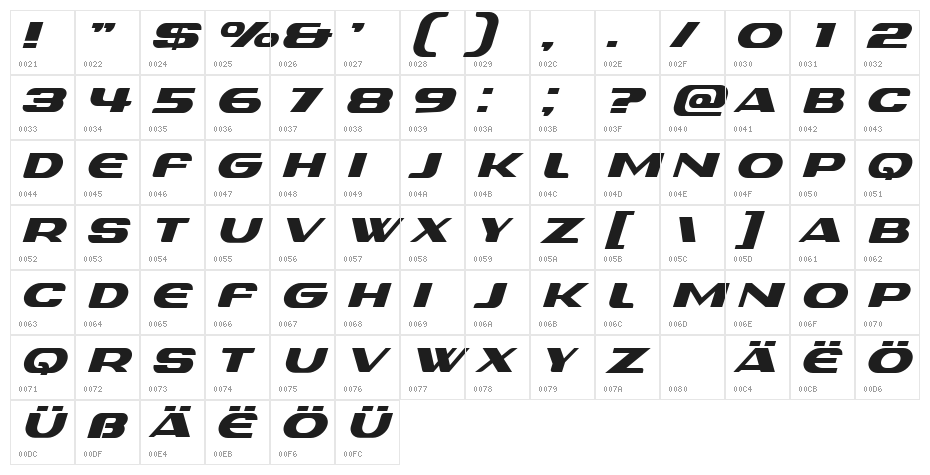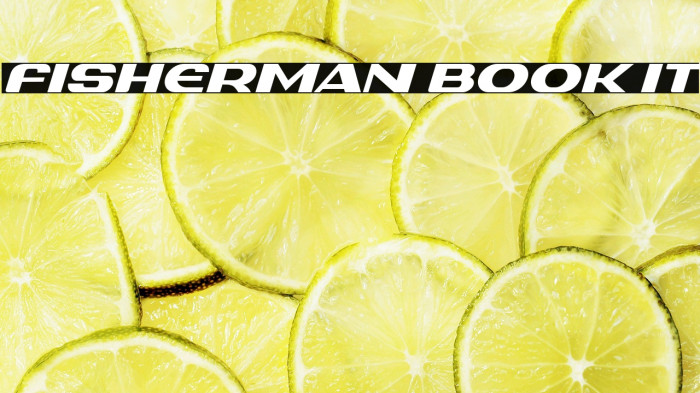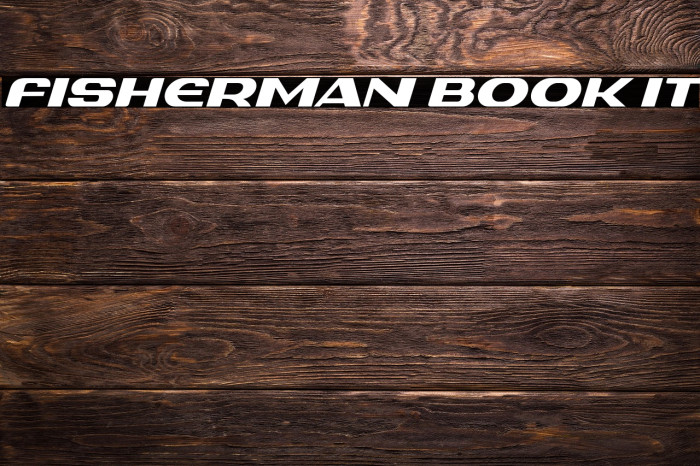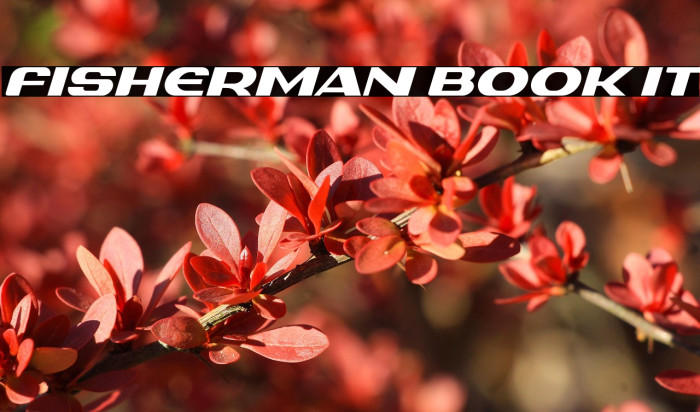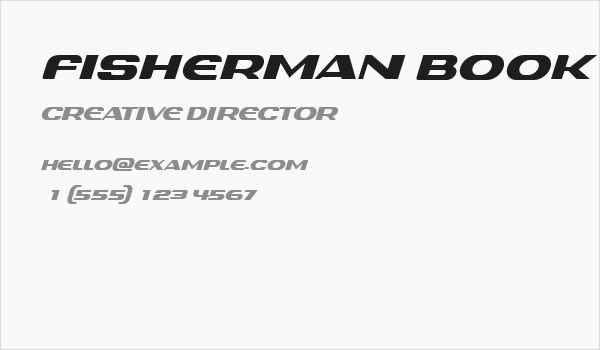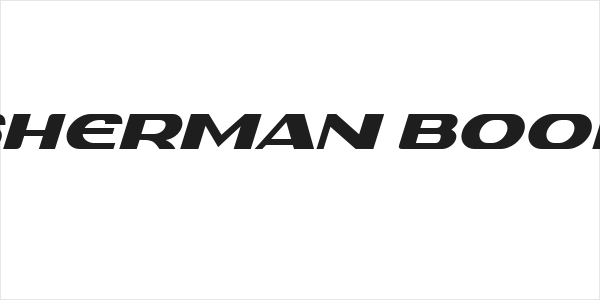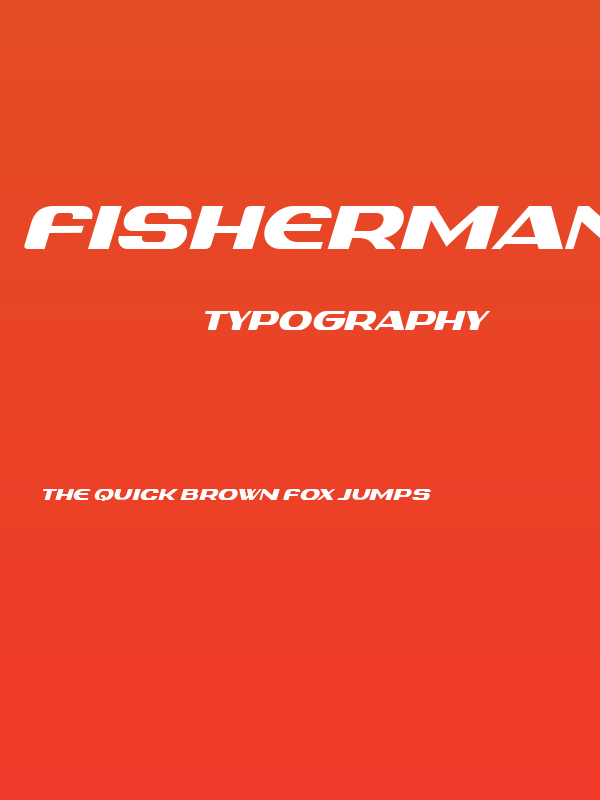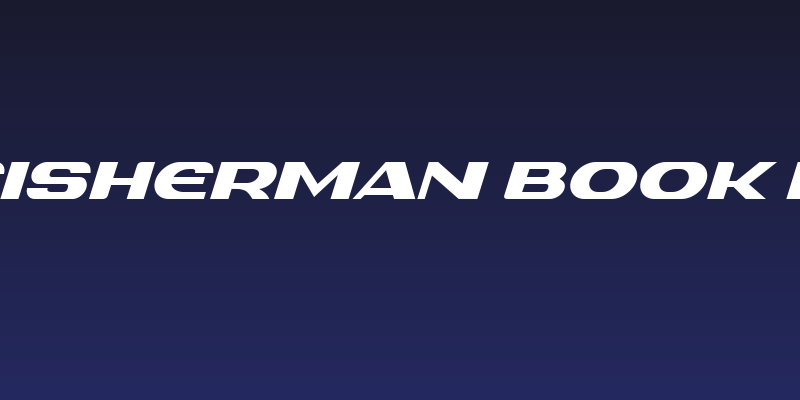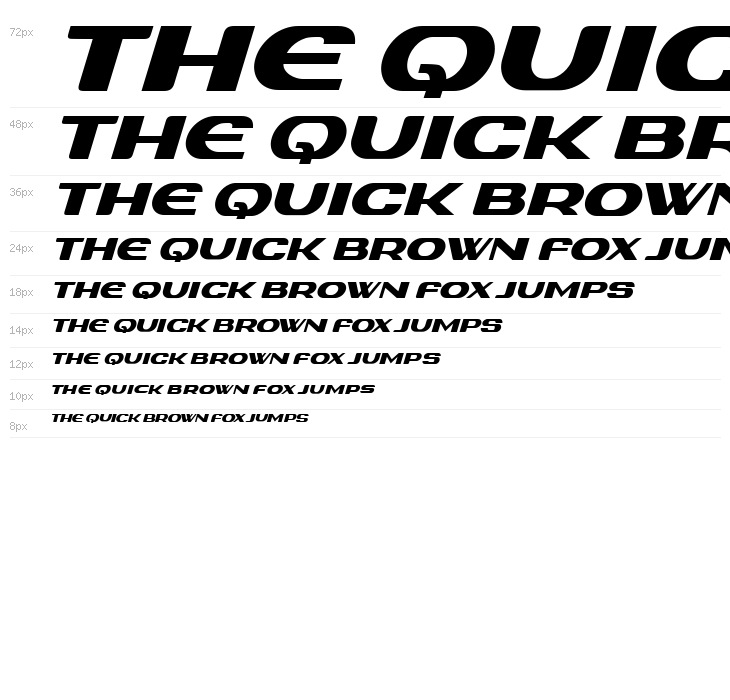
Fisherman Book IT Font
Fisherman Book IT Description
This font features a bold and dynamic style with a forward-leaning italicized appearance, giving it a sense of motion and energy. The characters are designed with a sleek, aerodynamic form, emphasizing speed and modernity. The strokes are consistent in thickness, providing a uniform look across all characters. The uppercase and lowercase letters maintain a cohesive style, while the numerals and special characters complement the overall design. This font is ideal for projects that require a contemporary and energetic feel.
| Proposed Projects | Ideal for sports branding, automotive designs, dynamic posters, and modern advertising campaigns. |